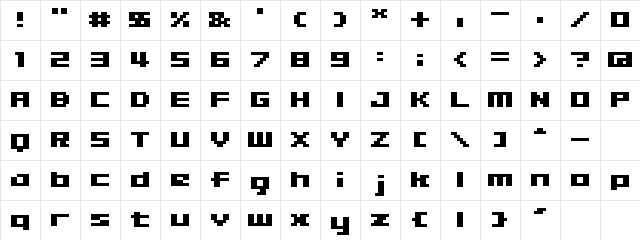
04b09 Regular
Design Context for 04b09 Typeface
04b09 is a composed and adaptable typeface that performs quietly and consistently across a wide range of design contexts.